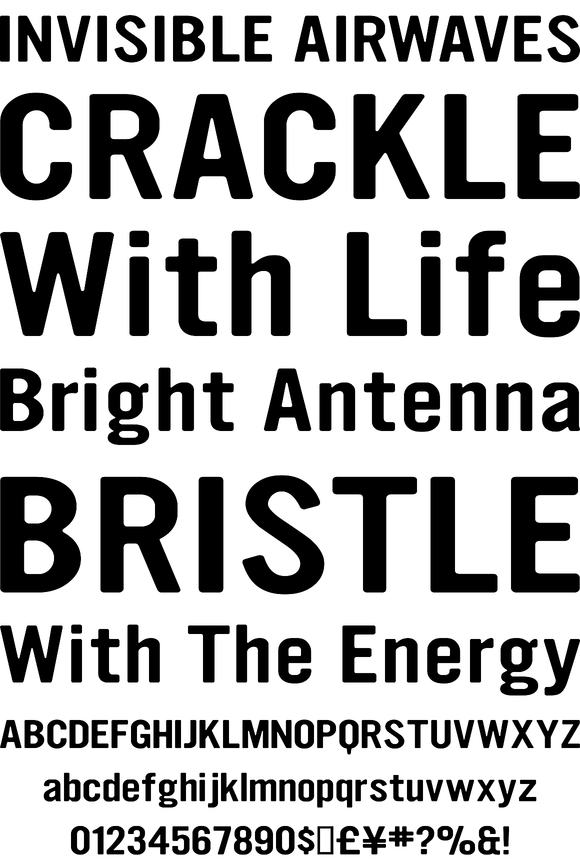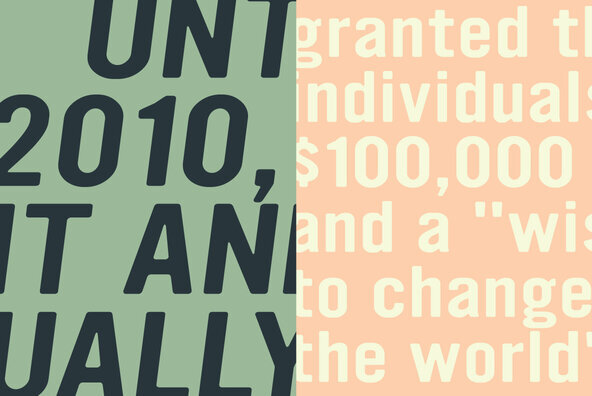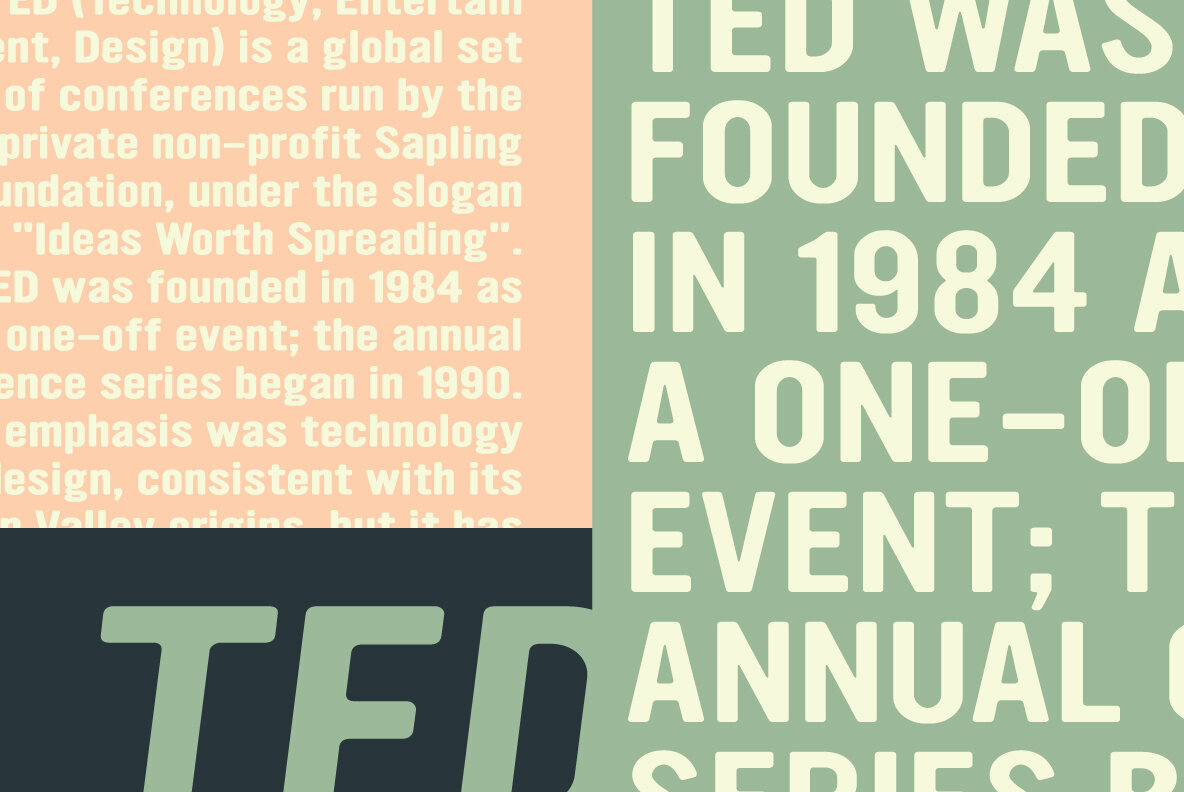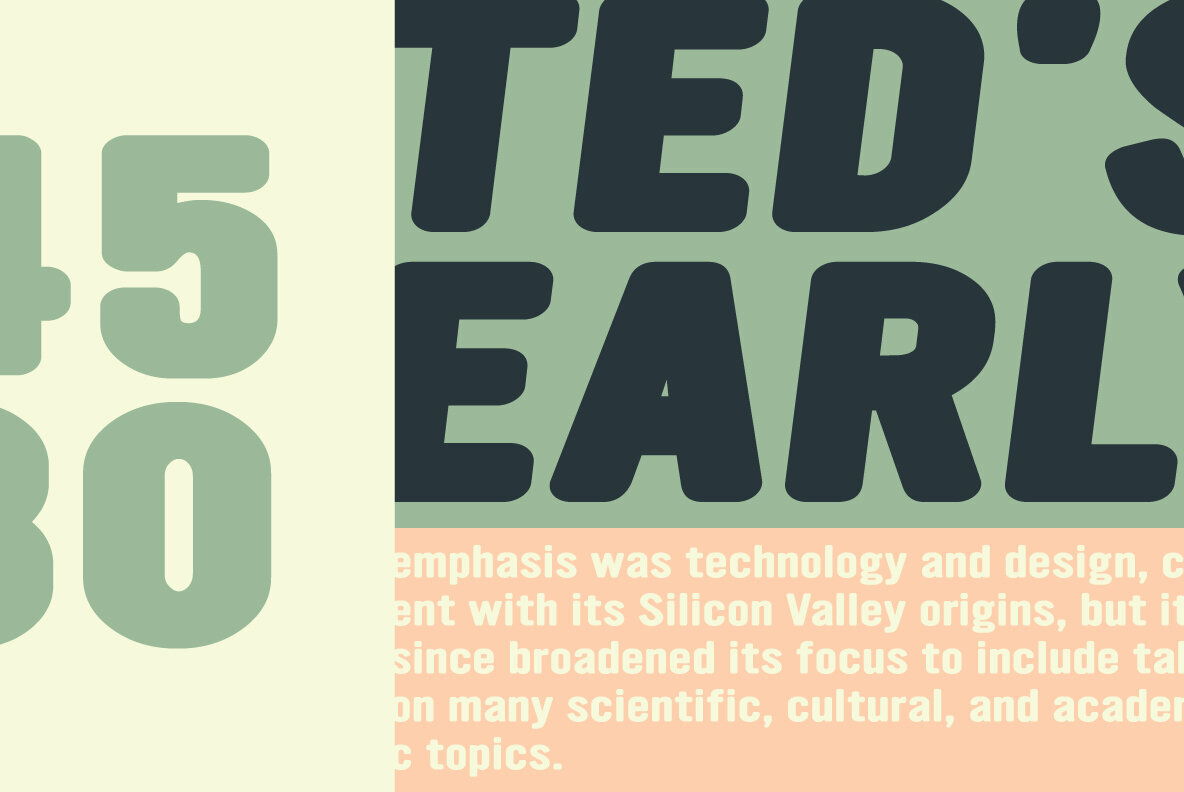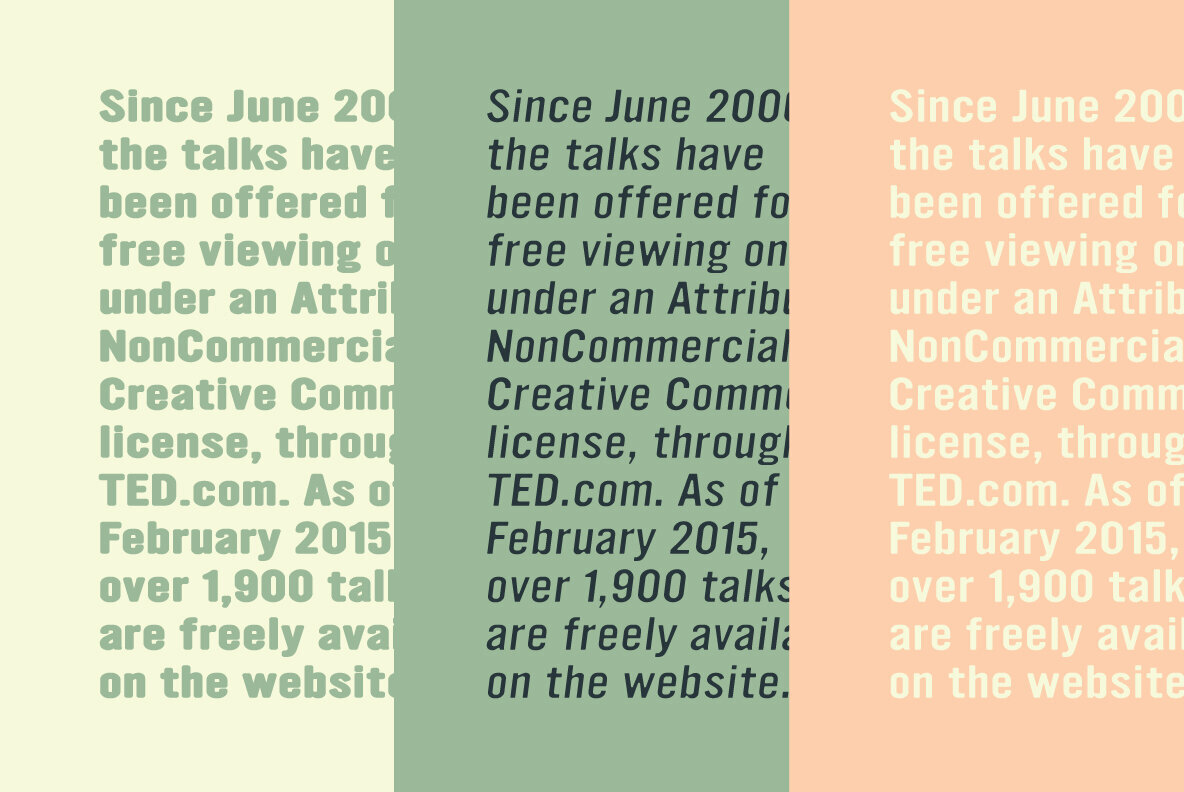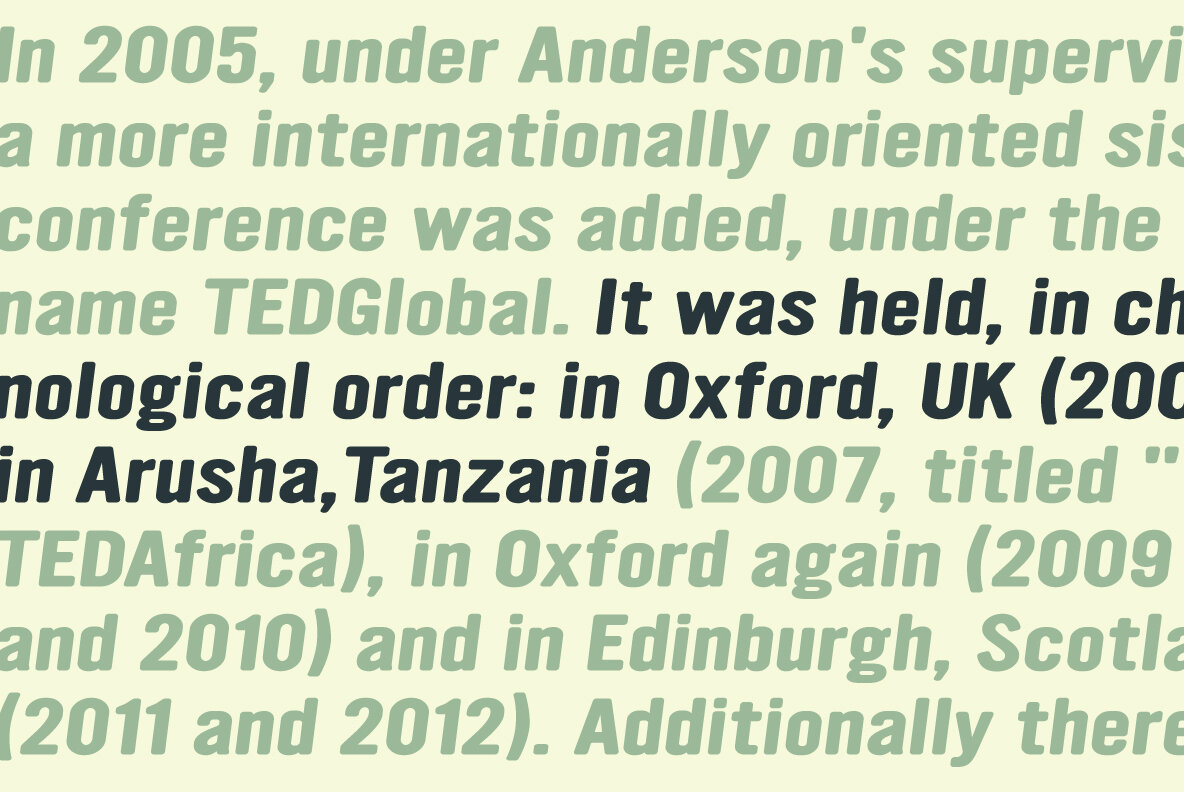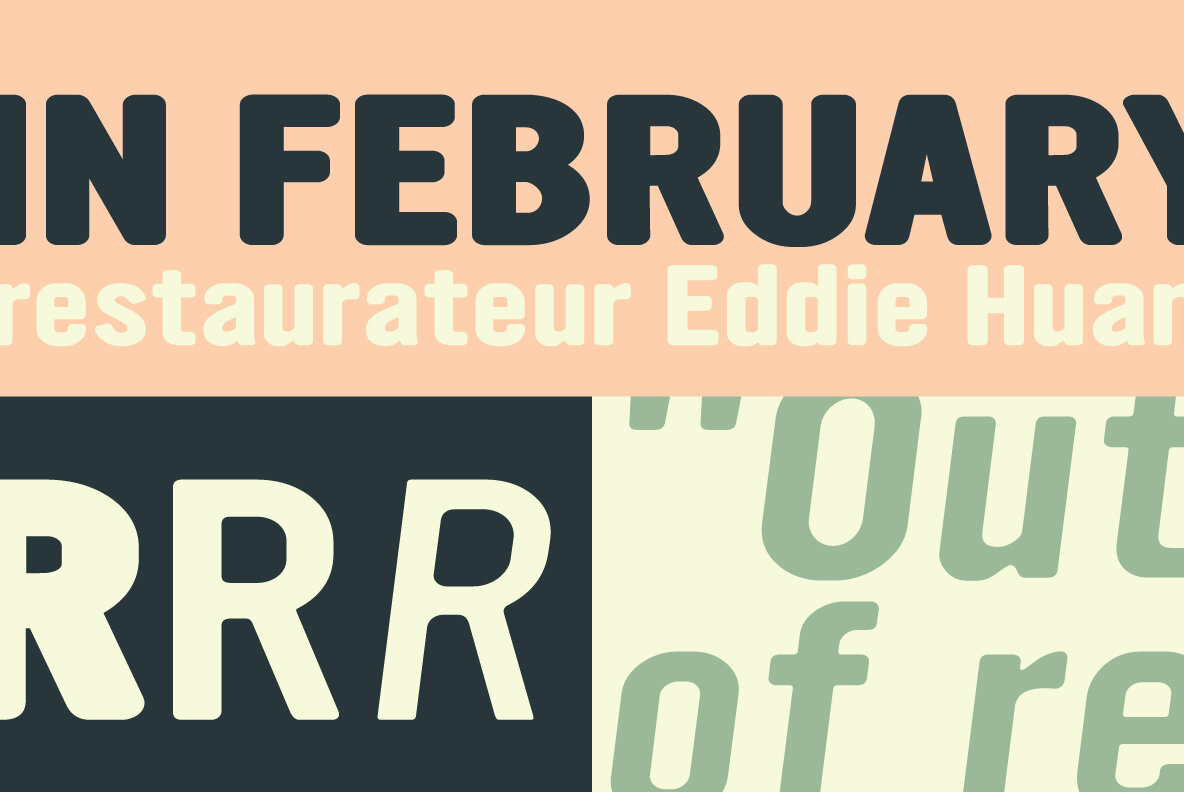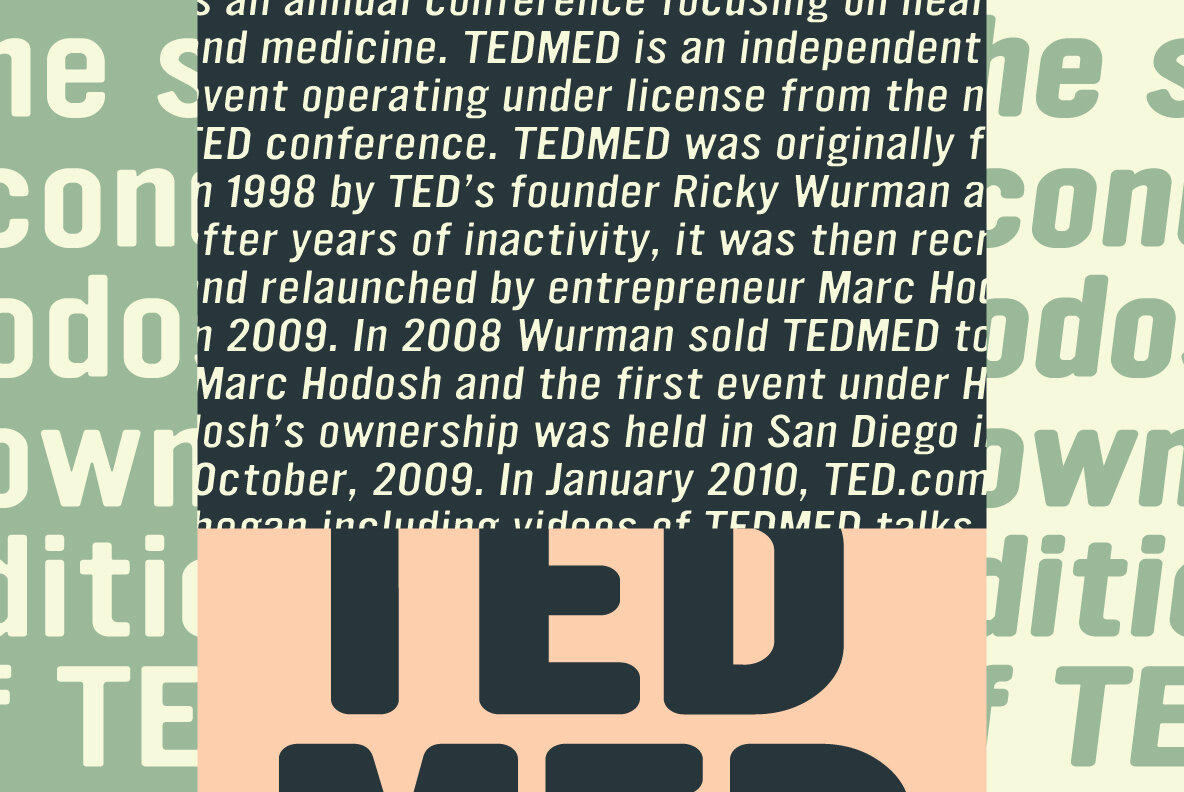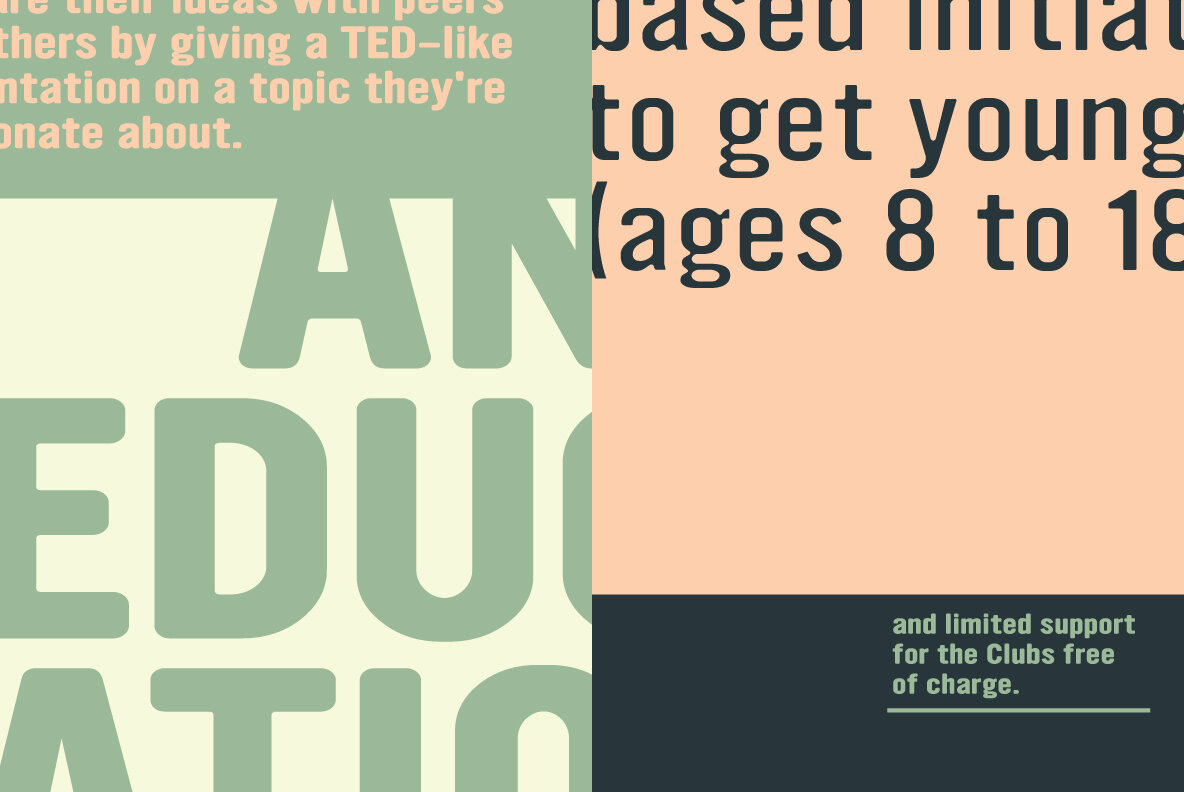
YWFT Ultramagnetic Expanded
YWFT Ultramagnetic is one of our hall of famers. In fact, from 2002-2006, it ranked in our Top Ten--spending a majority of that time at Number One. YWFT Ultramagnetic has been used by Harley Davidson, Starbucks, Disney Channel, Best Buy, Nike, Wired Magazine and Architecture Magazine, just to name a few. Now, we are proud to introduce YWFT Ultramagnetic Expanded, which takes the original design down a more conservative path by bringing out the width by 20 percent, making for more minimal, modern layout possibilities. Designed by YouWorkForThem.